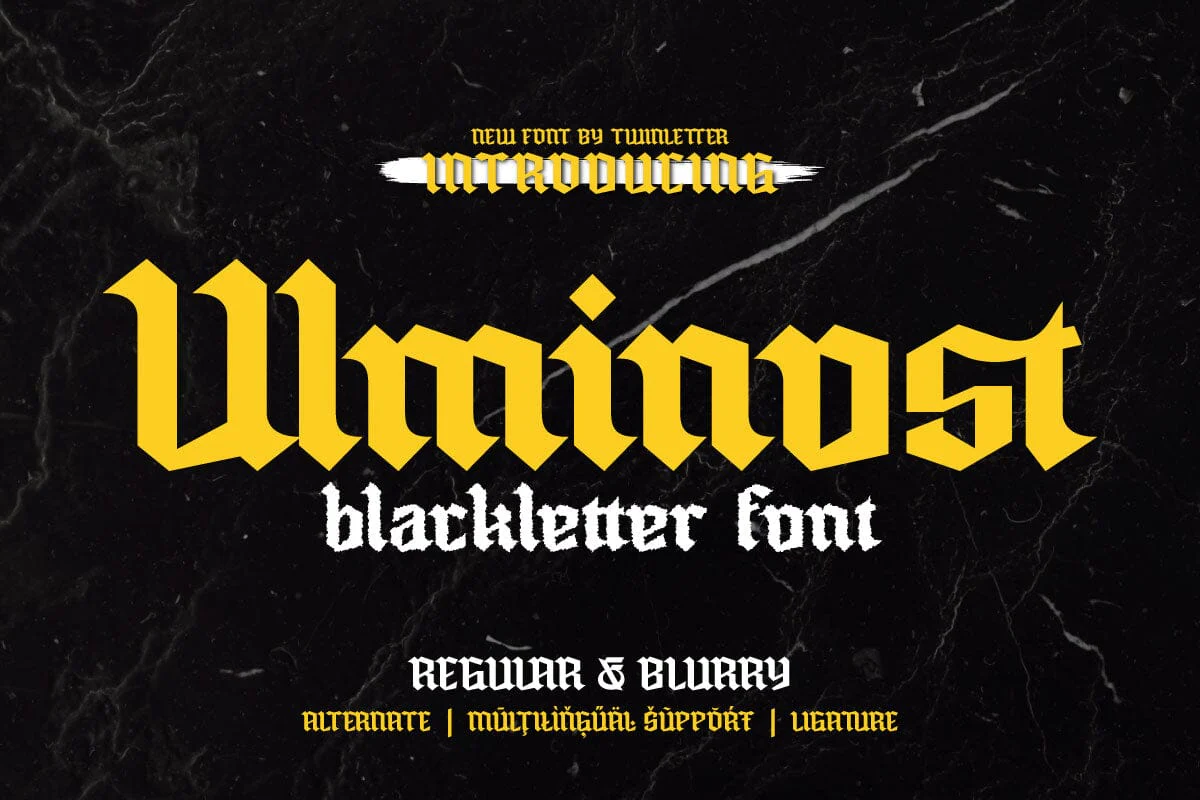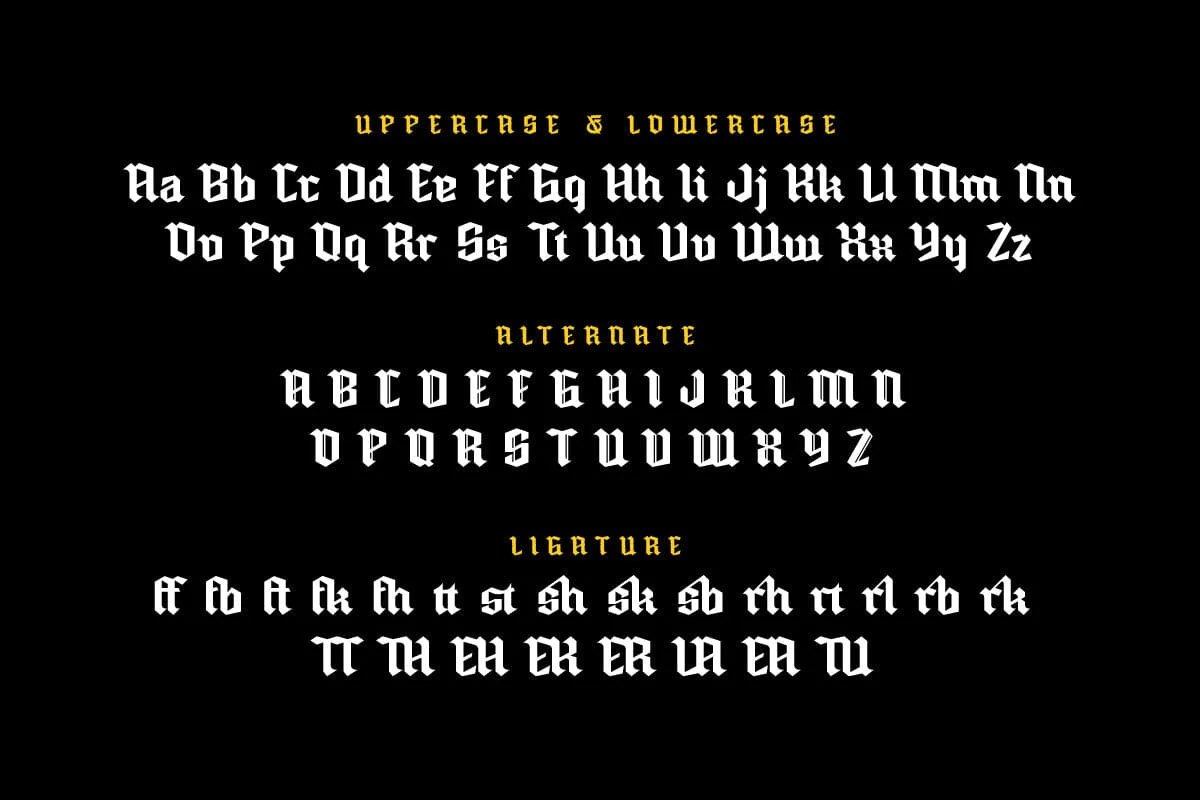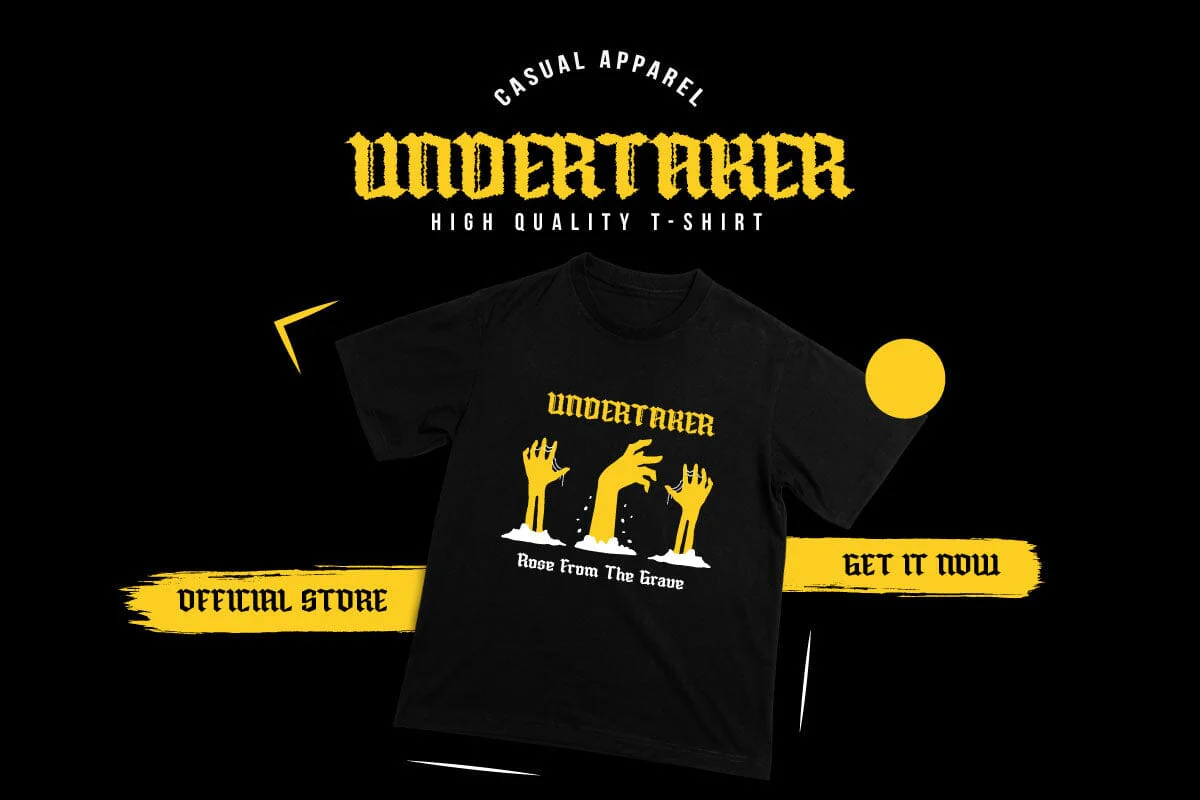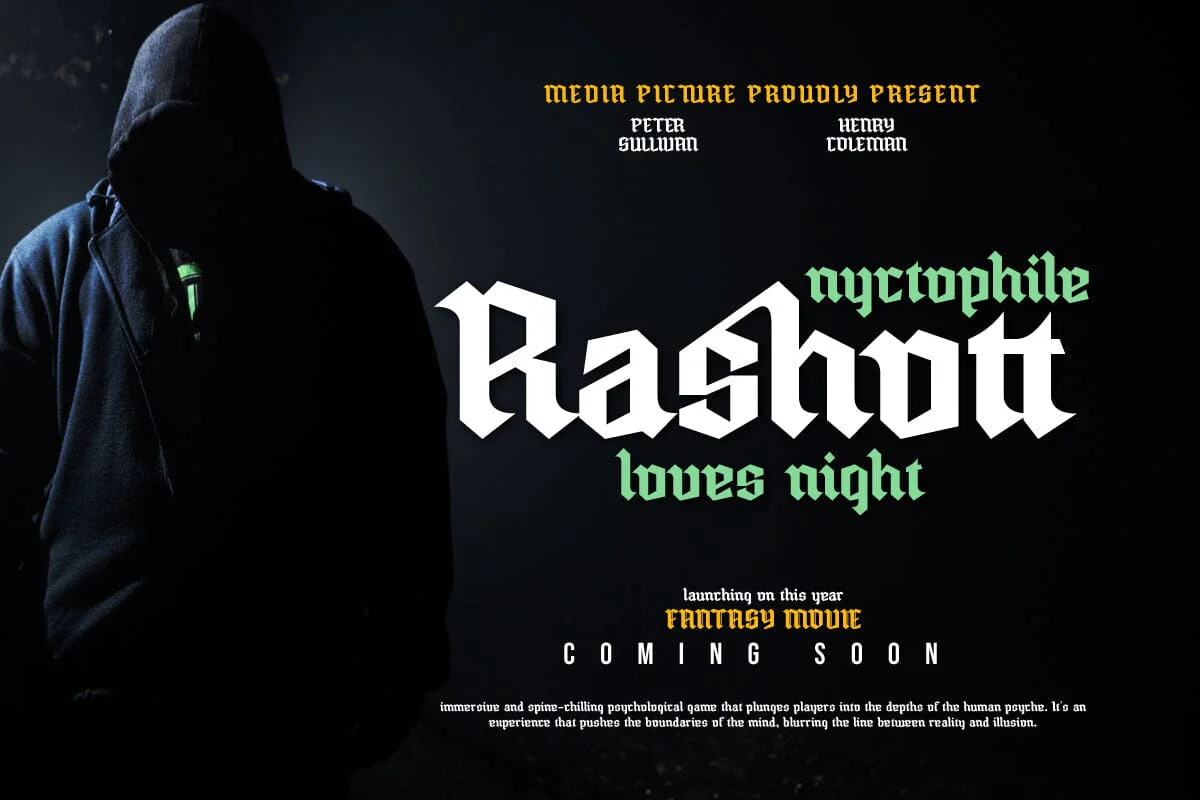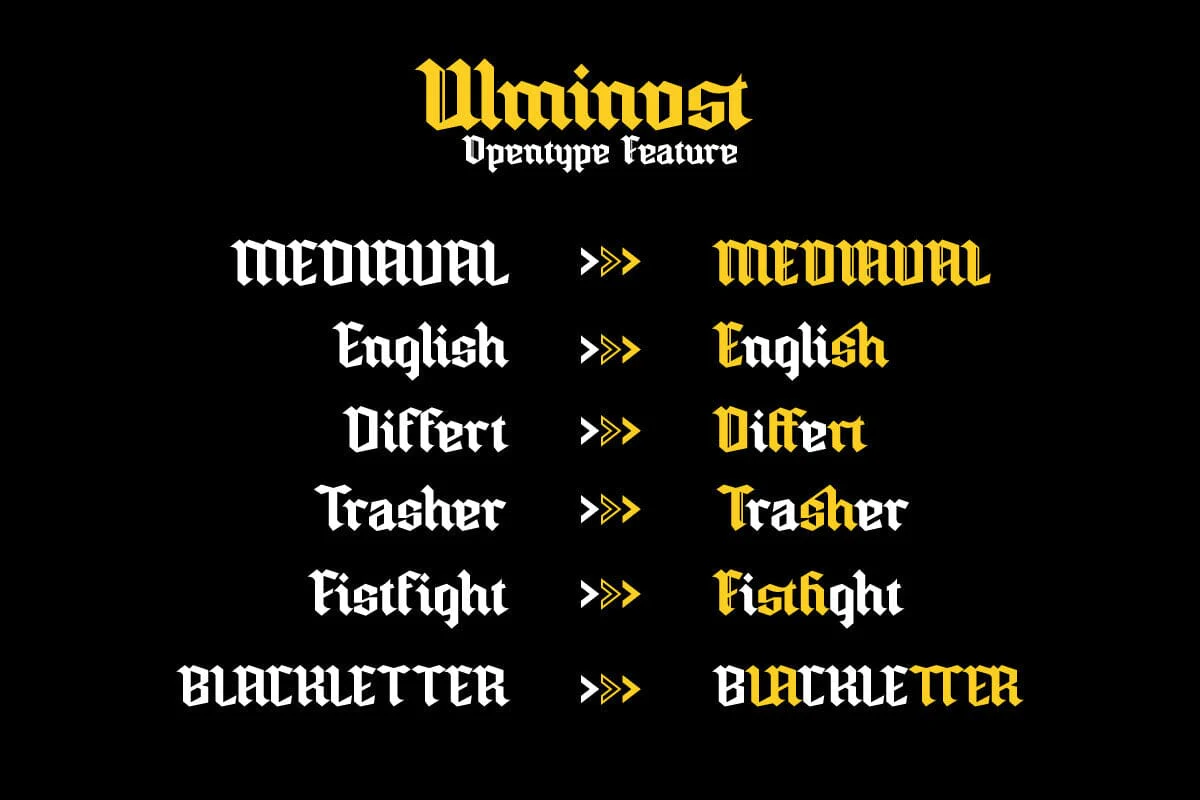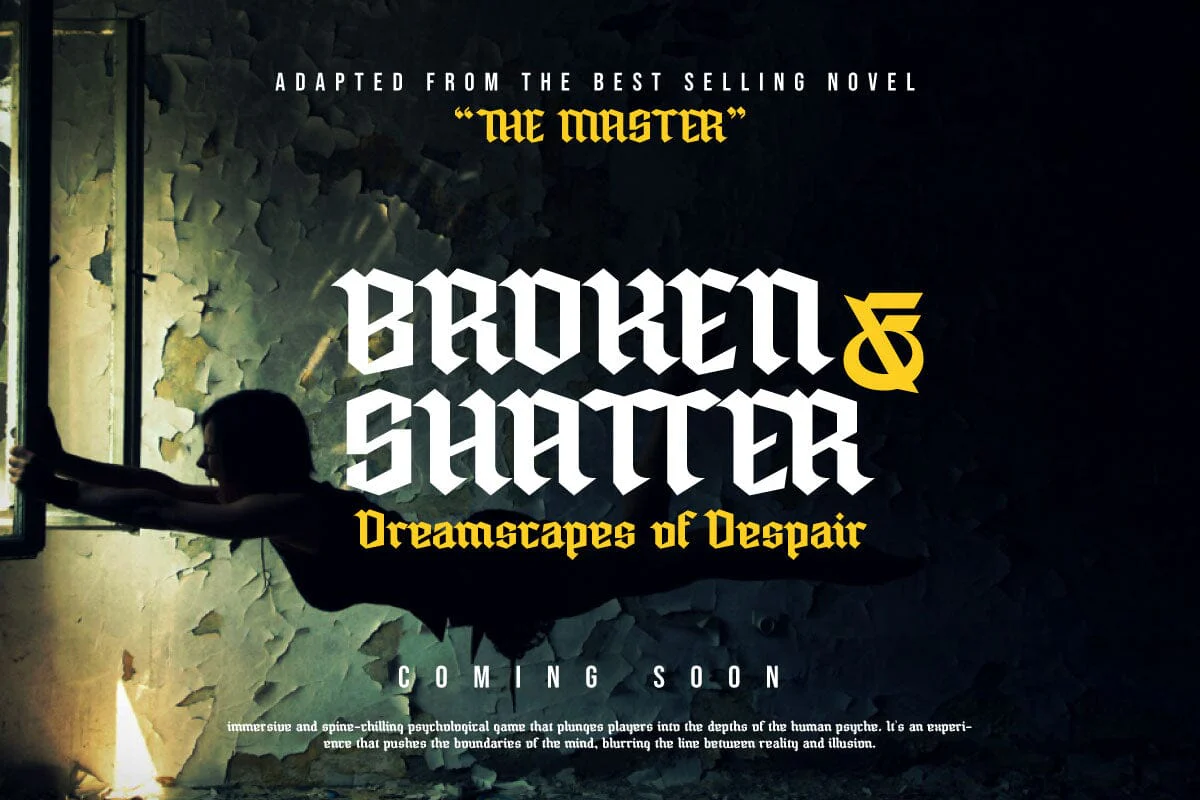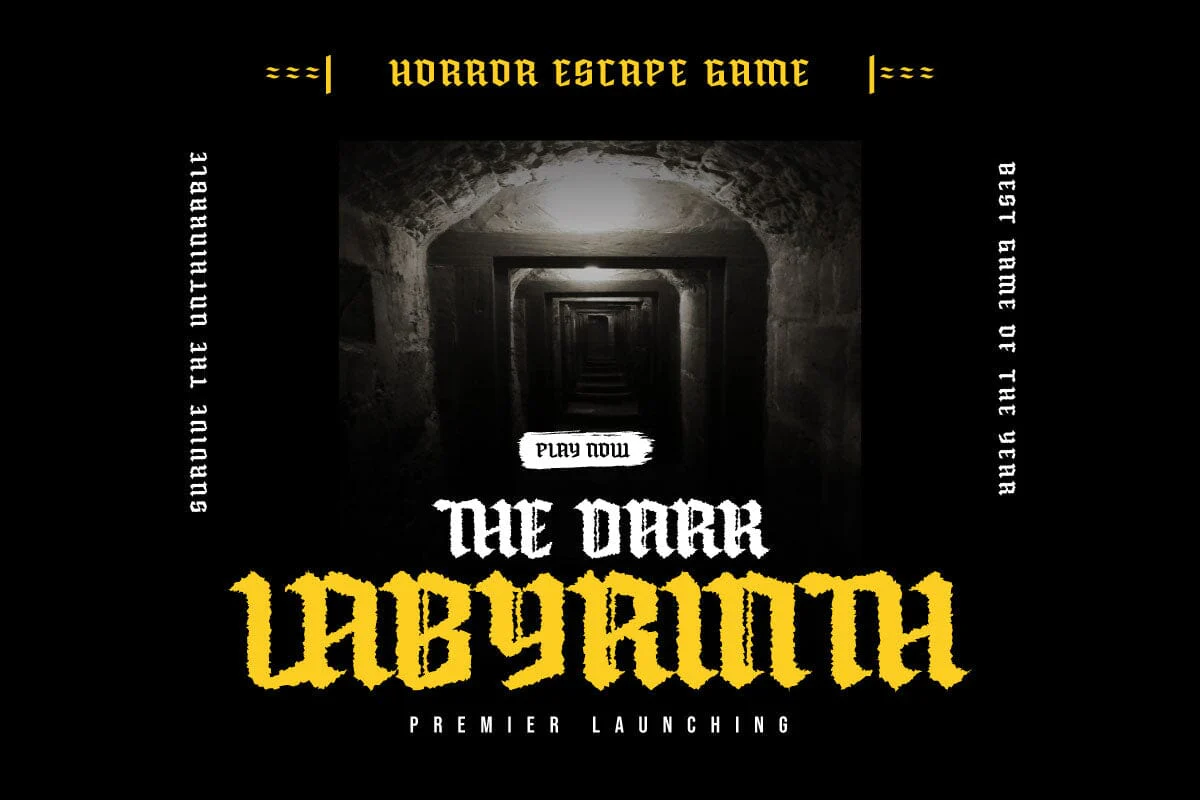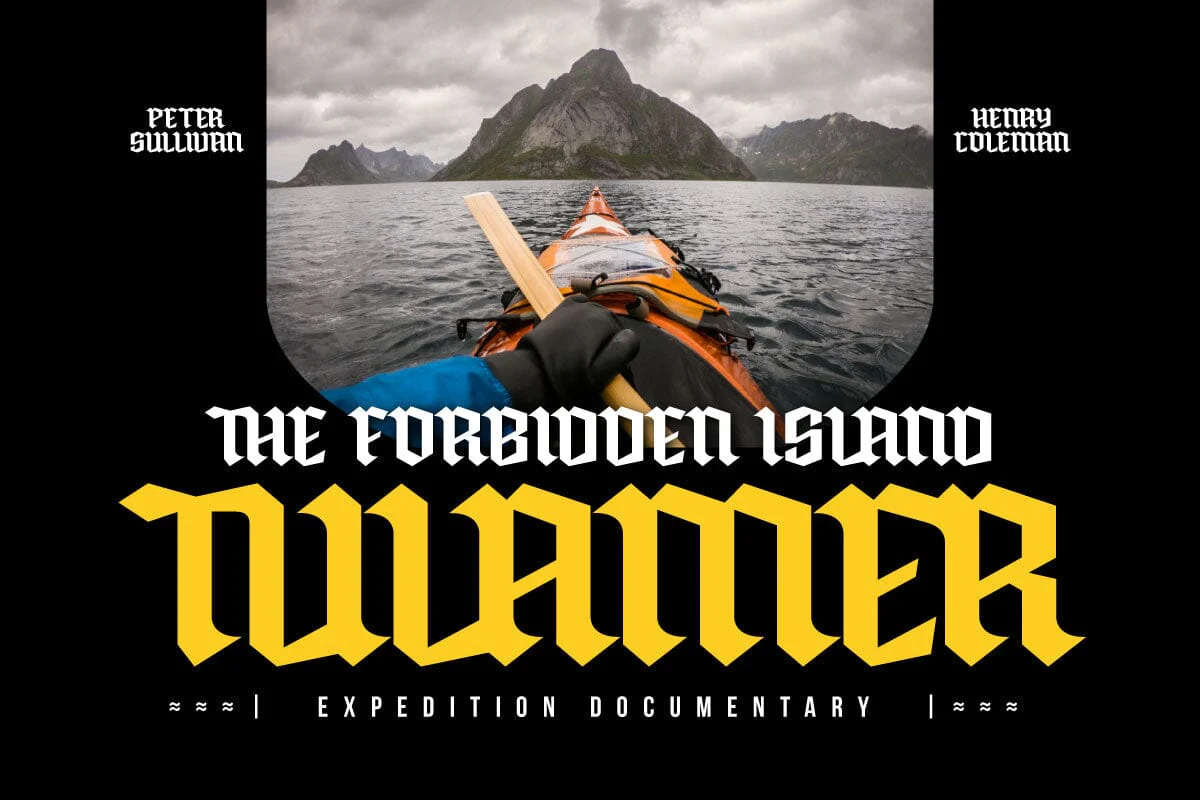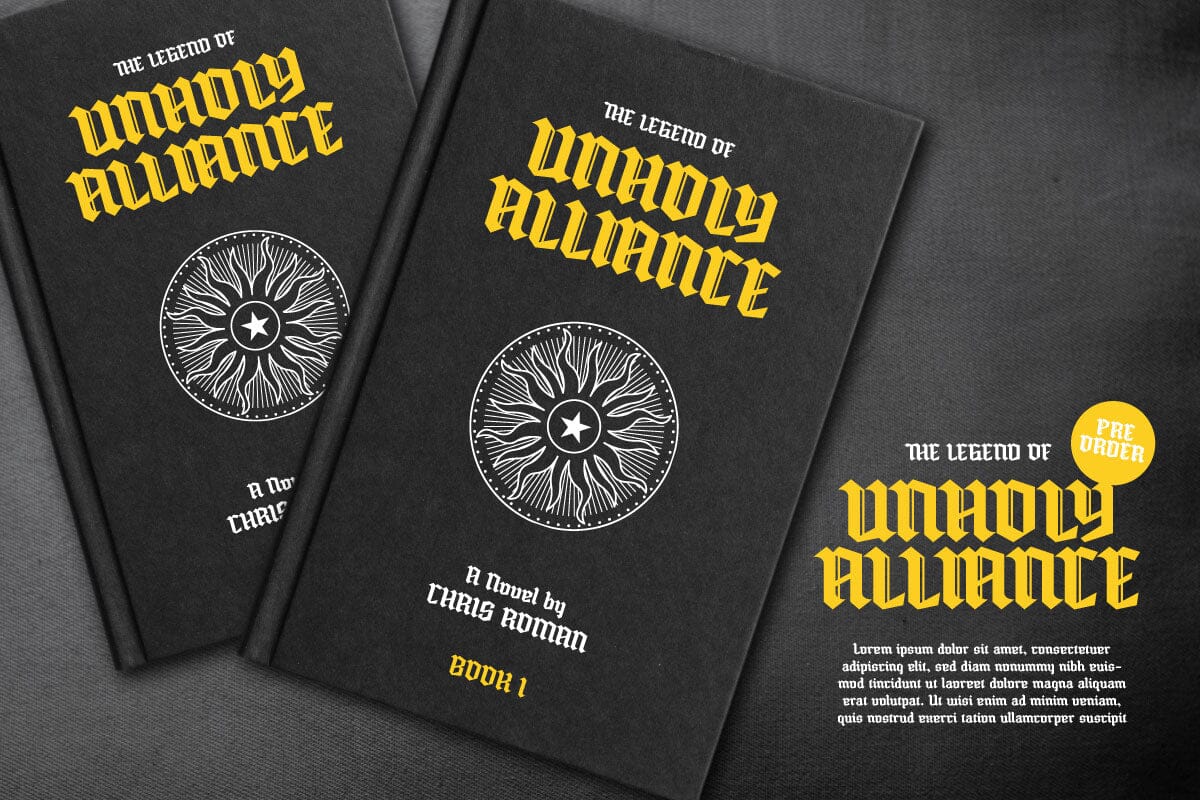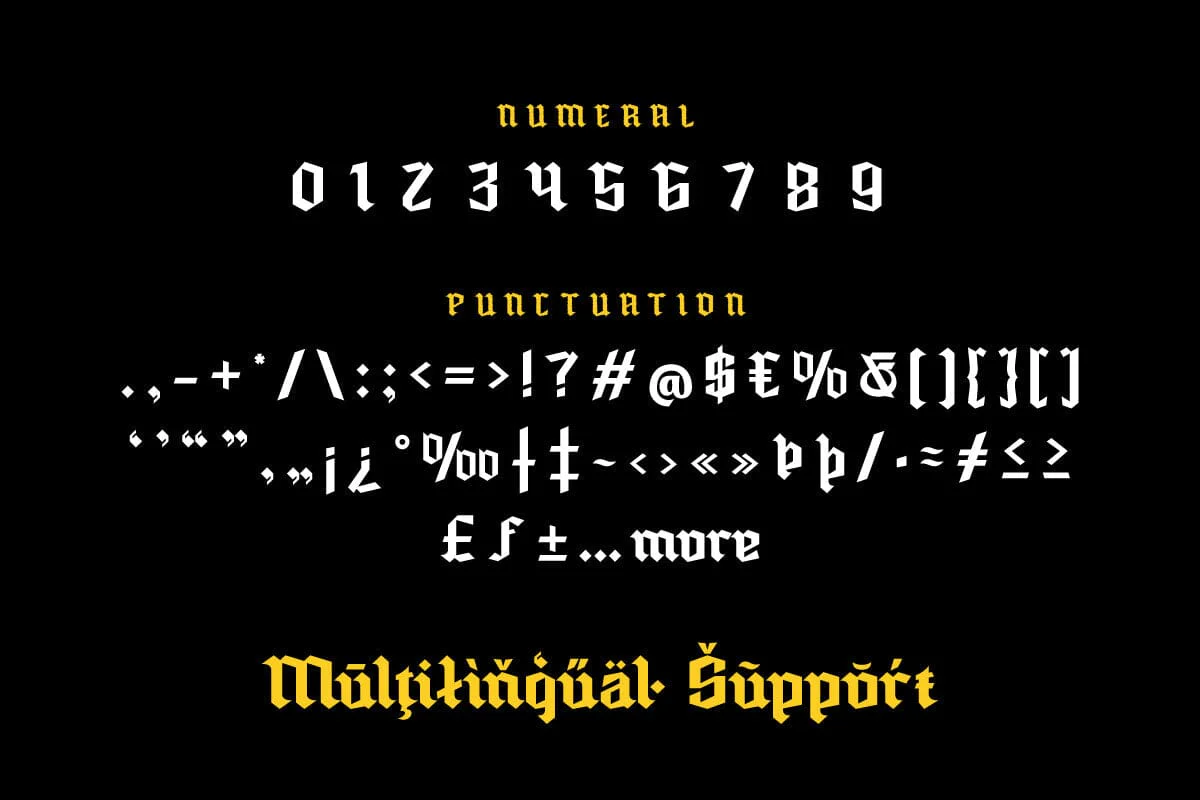
Ulminost - Blackletter Font
The Ulminost font, with its signature strong Blackletter style, brings elegance and power to any of your design projects. With a deep history and characteristics, this font provides a deep and powerful impression on every visual display.
The Ulminost font family, including regular and blurry variants, provides incredible creative flexibility. Whether you are designing branding, packaging design, or any other art project, Ulminost helps create a look like no other.
Features like ligatures and alternates add an artistic touch to each letter, giving you complete creative control to create exclusive designs. Ulminost's font capabilities support multiple languages, making it an inclusive choice for a global audience.
In a design world full of various styles, Ulminost stands out as a strong and memorable representative of the Blackletter style. Choose Ulminost to create works of art that speak with style and substance.
The Ulminost font, with its signature strong Blackletter style, brings elegance and power to any of your design projects. With a deep history and characteristics, this font provides a deep and powerful impression on every visual display.
The Ulminost font family, including regular and blurry variants, provides incredible creative flexibility. Whether you are designing branding, packaging design, or any other art project, Ulminost helps create a look like no other.
Features like ligatures and alternates add an artistic touch to each letter, giving you complete creative control to create exclusive designs. Ulminost's font capabilities support multiple languages, making it an inclusive choice for a global audience.
In a design world full of various styles, Ulminost stands out as a strong and memorable representative of the Blackletter style. Choose Ulminost to create works of art that speak with style and substance.